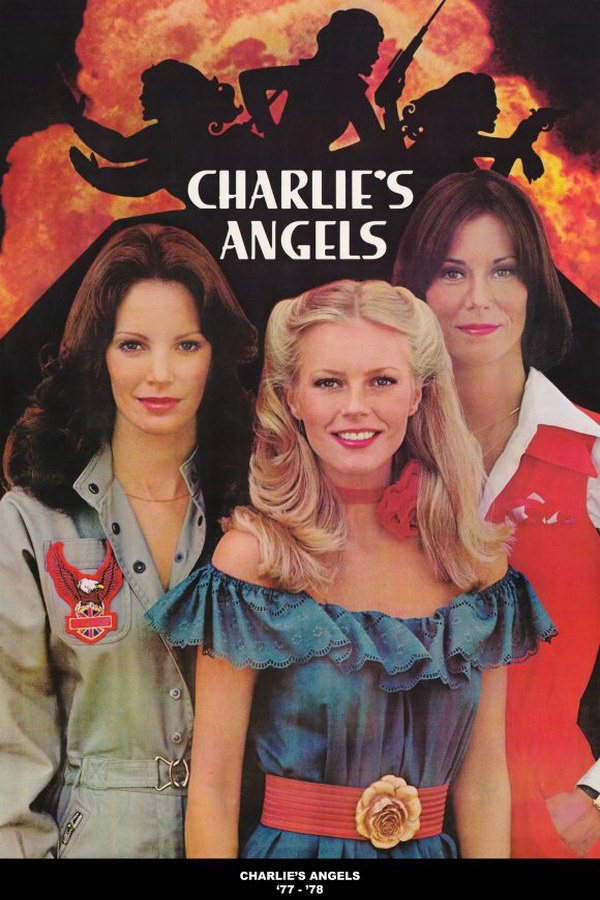
Charlie's Angels Font
AdventureCharlie’s Angels was a popular 1970s crime drama series that followed the adventures of three female detectives working for the fictional Charles Townsend Agency.
The title of the TV series features the Lee font, a phototypesetting font designed by Leo Weisz for VGC in 1974. You can view more information about the font here.